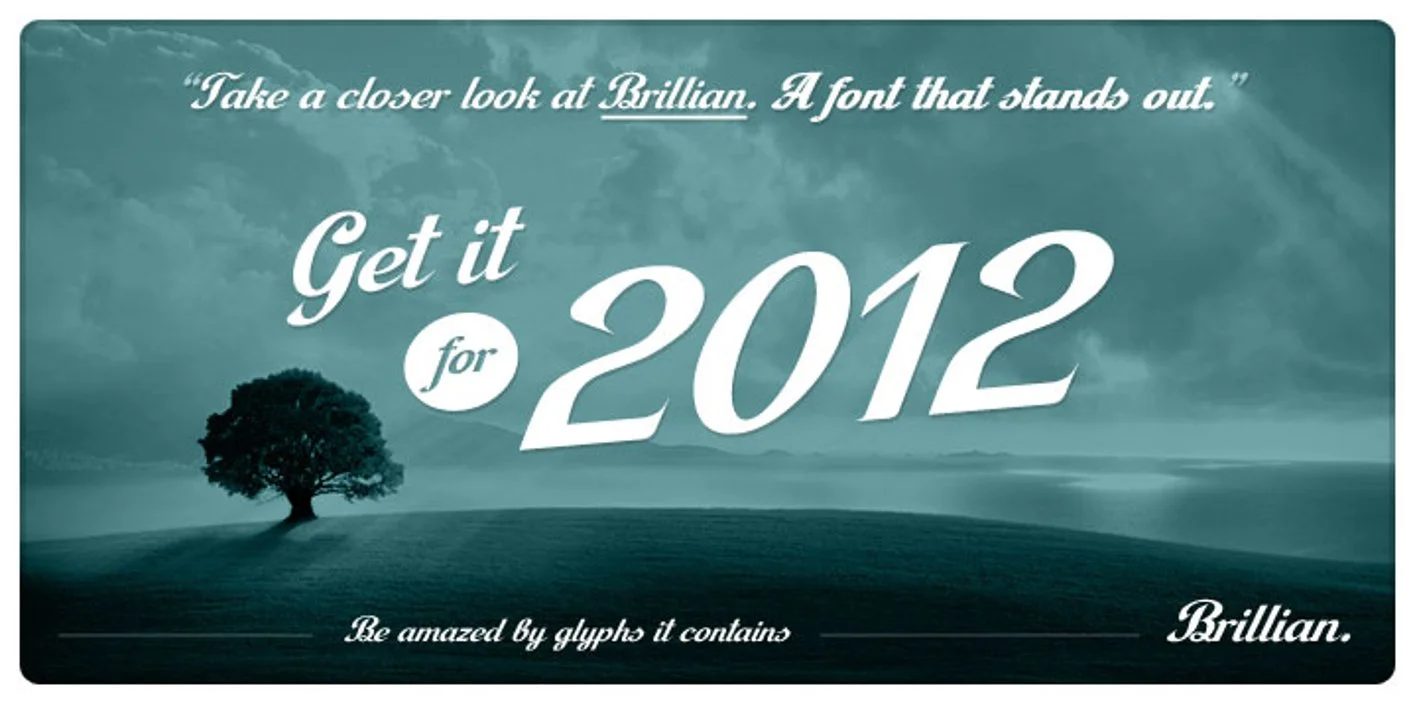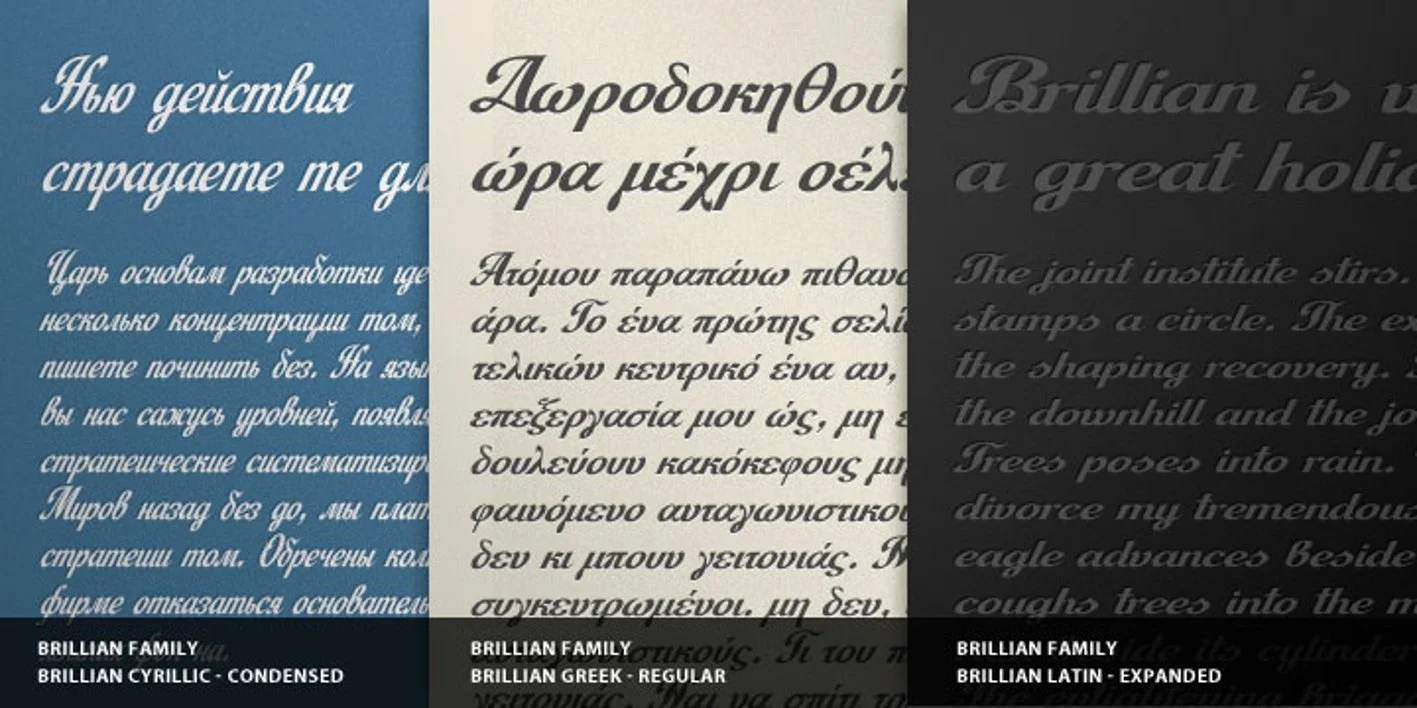
Brillian Font
When a design brief calls for both visual harmony and precise spacing and immediate visual impact, type choices matter — Brillian answers that brief. The typeface brings an elegant, calligraphic sensibility to a broad range of creative disciplines, with strong typographic hierarchy support that holds up whether the work is print-first or screen-first.
In practice, Brillian proves particularly effective for packaging design, advertising campaigns, product labels, wedding invitations, luxury stationery. Designers reaching for it find that the type decisions feel resolved rather than laboured — a useful quality when client timelines are tight.
Ascenders and descenders are drawn with generous extents that give the script its characteristic rhythm. Ligature pairs have been individually tested to prevent collisions, and the baseline is slightly bounced to suggest a natural, unhurried hand.
The range of applications extends to annual reports, boutique logos, perfume labels, beauty packaging. That breadth is deliberate: the proportions and spacing were stress-tested across a wide range of mock briefs before the typeface was finalised.
The consistent rhythm of Brillian across a full paragraph creates the kind of even grey value that makes extended reading comfortable, a detail that matters more in long-form content than its subtlety might suggest.
Freelance designers across print and digital disciplines find Brillian a reliable choice for projects that demand both personality and restraint. The design avoids the self-conscious quirkiness that dates quickly, settling instead for considered distinctiveness that holds up over time.